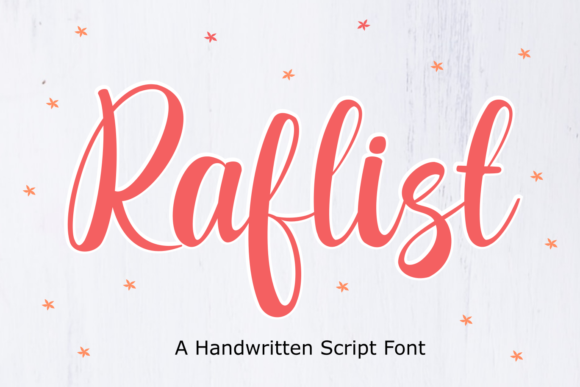
Behold Raflist, a script font family that stands like a radiant jewel among the vast font universe. Crafted with the utmost care and precision, Raflist is no mere font; it's an art form that will elevate your designs to breathtaking heights.
With its intricate swashes and graceful curves, Raflist embodies the essence of elegance and refinement. Its seamless flow and effortless readability make it the ideal choice for those seeking a font that captivates and enchants the senses.
Raflist's versatility is unrivaled, it seamlessly adapts to any creative endeavor, whispering its charm into existence. From wedding invitations that exude romance to eye-catching branding projects that demand attention, Raflist leaves an indelible mark of sophisticated beauty.
Step into a world of unparalleled beauty and wonder, where words dance upon the page with grace and allure. Raflist is not just a font; it's a journey through the realm of imagination, where your creative visions take flight and become tangible masterpieces.
Indulge in the opulence of Raflist, allow its enchanting aura to permeate your designs, and watch as they transform into works of art that whisper elegance and leave your audience spellbound.
Immerse yourself in the world of Raflist, a realm where imagination knows no bounds, and let your creativity flourish like never before.